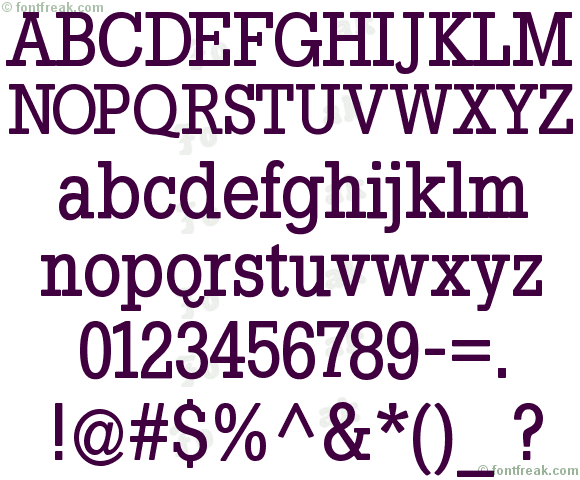
SlabTallX-Medium
SlabTallX
SlabTallX-Medium by Manfred Klein is a striking slab-serif font that offers a unique blend of modernity and classic design. Characterized by its robust and bold stroke weight, this font exudes confidence and readability. The even spacing between letters enhances legibility, making it an excellent choice for both digital and print applications. The lack of excessive contrast in the strokes gives it a sturdy appearance, while the subtle decorative elements add a touch of personality that makes it stand out in various contexts.
This versatile font is perfect for a wide range of use cases. Its boldness makes it ideal for attention-grabbing headlines on movie posters, where clear communication is essential. Additionally, the SlabTallX-Medium font shines in restaurant menus, where its legibility ensures that patrons can easily read dish names and descriptions. Graphic designers will find this font suitable for branding projects, as its strong presence can effectively convey a brand's identity. Small business owners can also utilize it for marketing materials, such as flyers and social media posts, to create a cohesive and professional look. Content creators will appreciate its adaptability for blog headers and promotional graphics alike.
Targeted towards graphic designers, small business owners, and content creators, the SlabTallX-Medium font free download offers an accessible option for anyone looking to elevate their design projects. Its unique blend of boldness and readability makes it a fantastic choice for those who want their text to make an impact. What sets SlabTallX-Medium apart is its ability to balance strength with style, allowing it to serve a myriad of design needs while maintaining a distinctive character. This font is not just a typeface; it’s a tool that can enhance your creative expression.